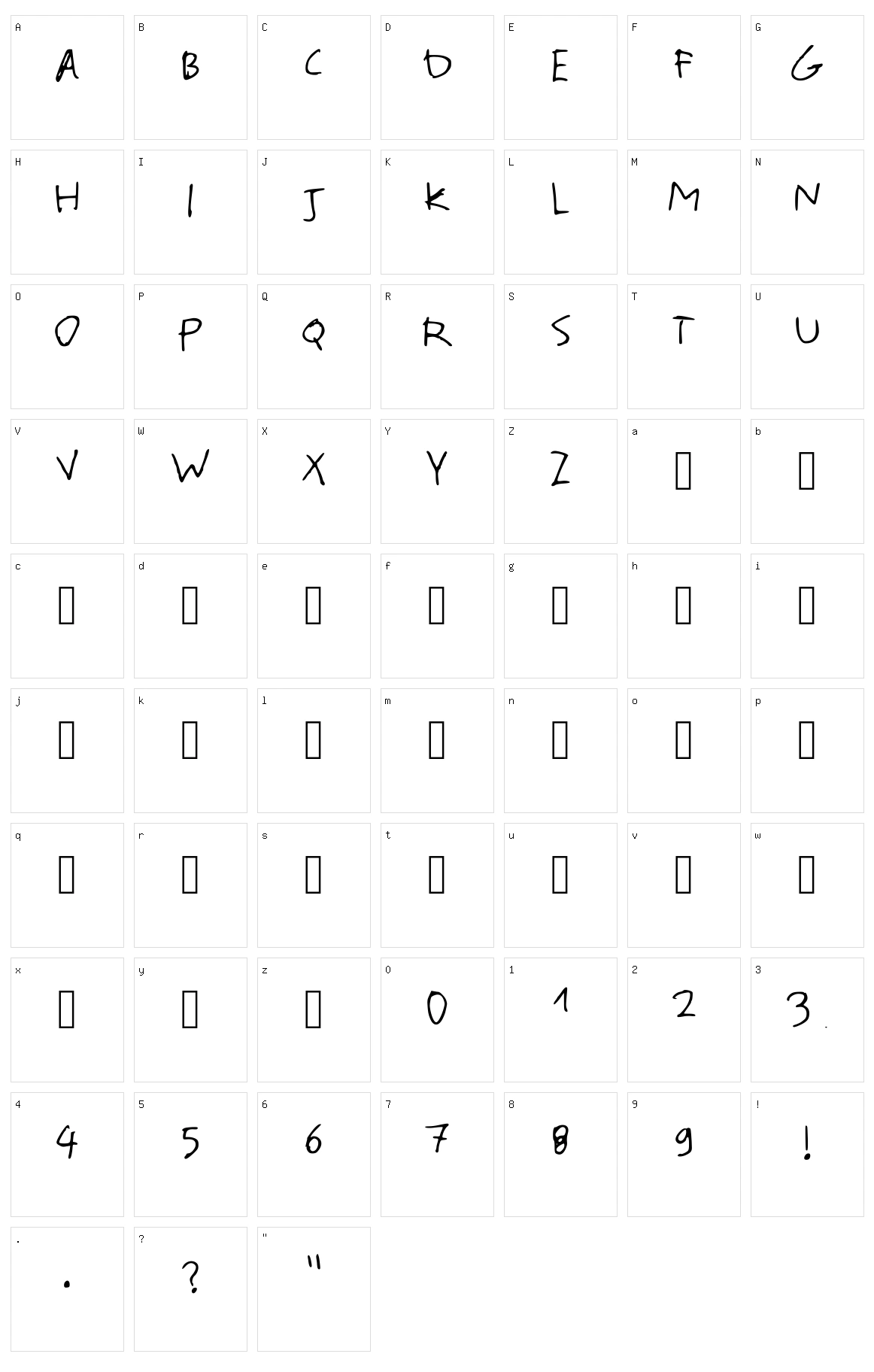
The free font Out West is carefully designed by Tasos Eclipse, showcasing a thoughtful balance of creativity and usability and falls under the Script font style. When you download the ZIP file, it contains only 5.86 KB of font files, making it lightweight and quick to download. Please review the license details below to understand permitted usage and distribution rights. If license information is not available, we recommend using this font for personal projects only or contacting the author directly for commercial usage permissions.